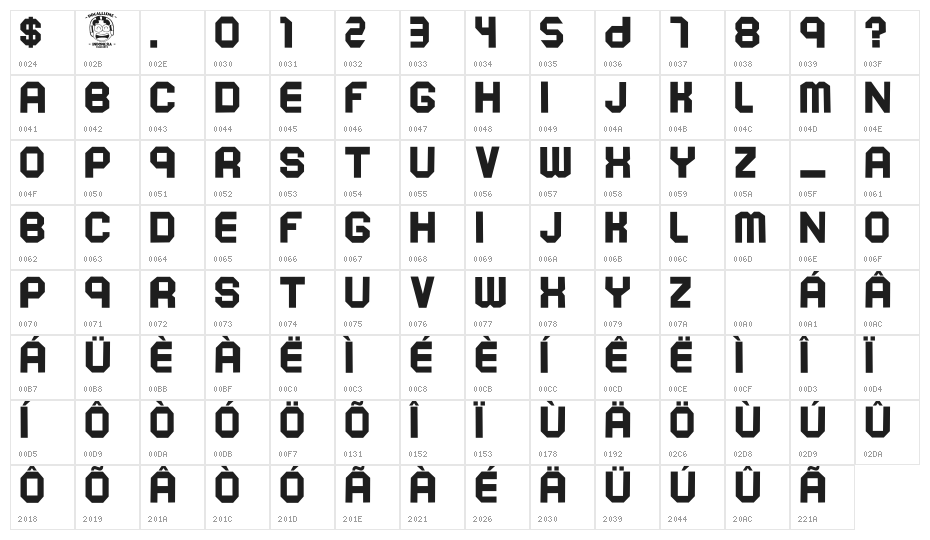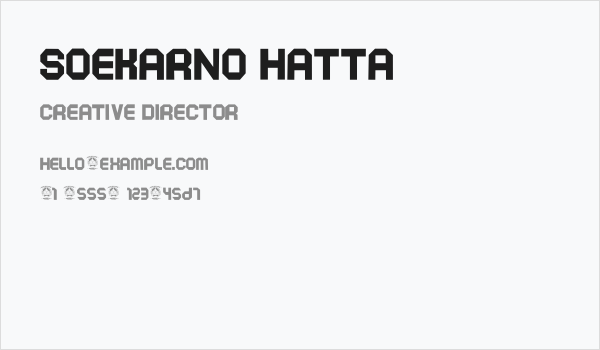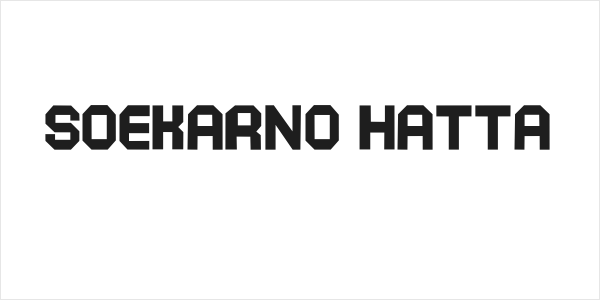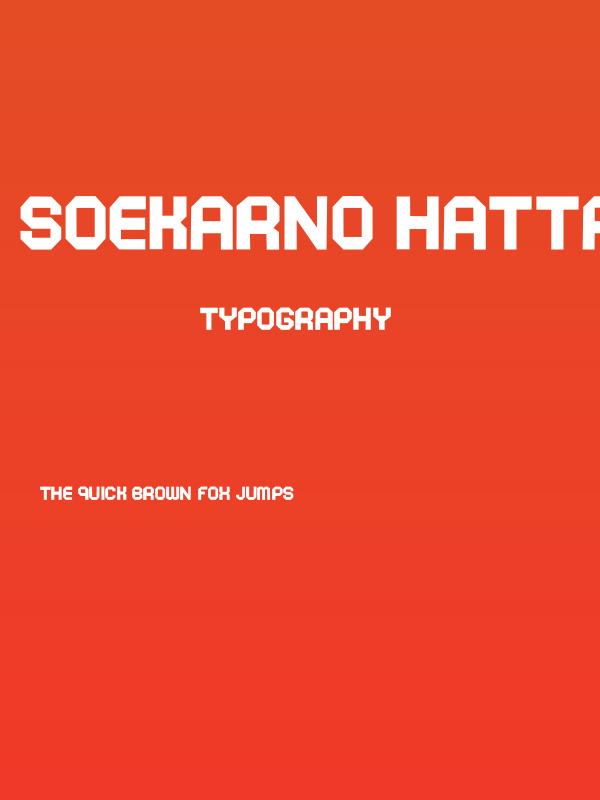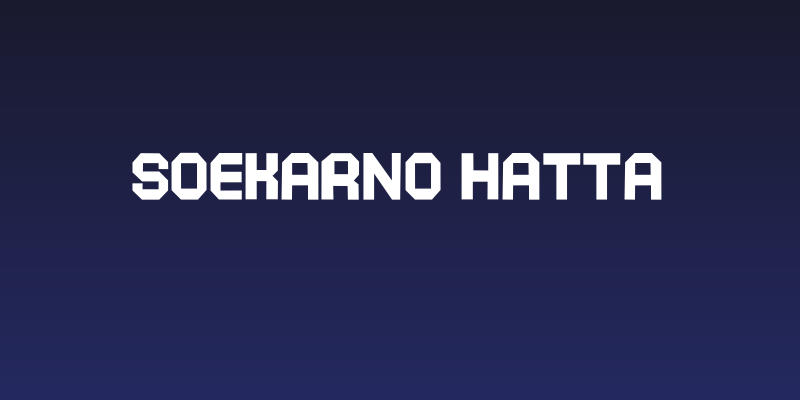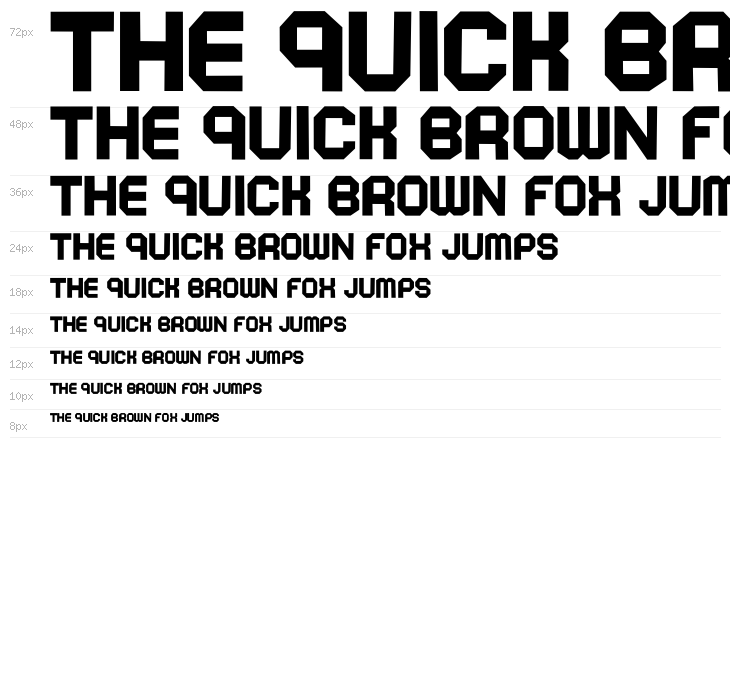
SOEKARNO HATTA Font
SOEKARNO HATTA Description
This font features a bold, geometric design with a strong presence. The characters are constructed with angular, block-like shapes that give it a modern and industrial feel. The uppercase letters are uniform in height, while the lowercase letters maintain a similar structure, creating a cohesive look. The numerals are equally bold and follow the same geometric style, ensuring consistency across all characters. Special characters are included, maintaining the same aesthetic. This font is highly legible and makes a strong visual impact, suitable for various design applications.